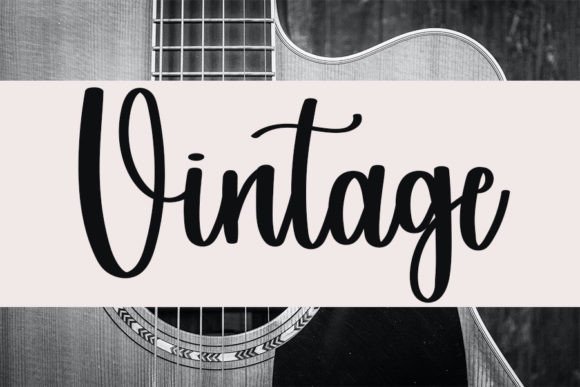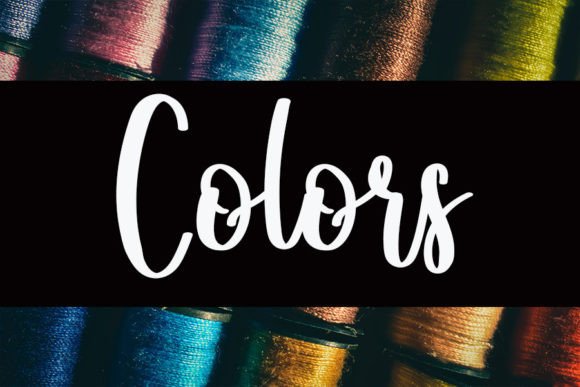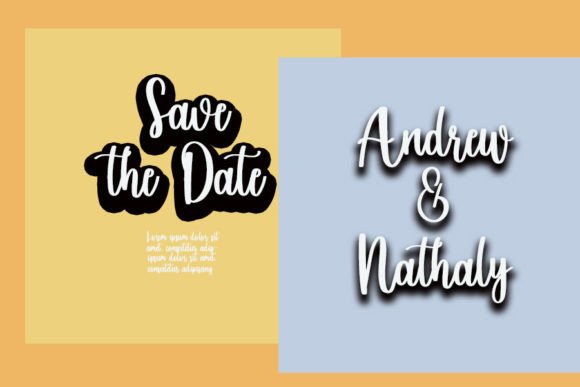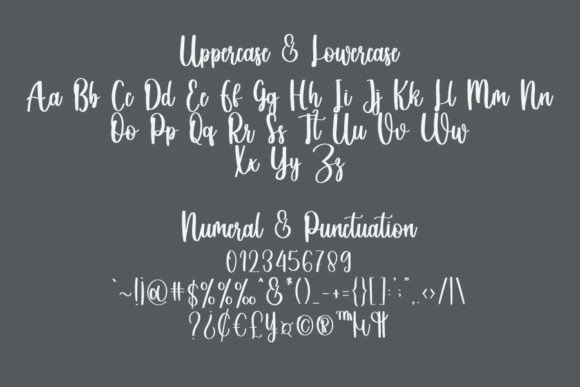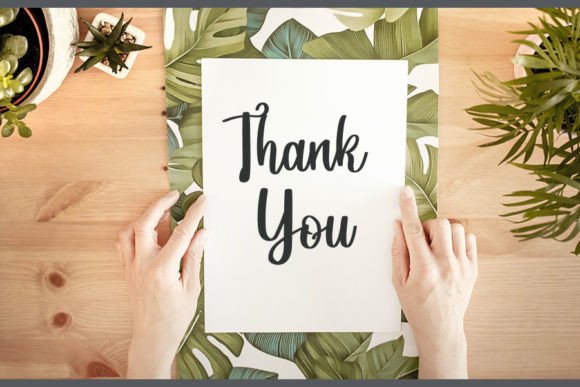
Bundels Font: Elevate Your Designs with a Modern Handwritten Style
Are you tired of using the same old fonts in your designs? Look no further than Bundels Font, a cool handwritten font that brings a modern vibe and spotless form to your projects. Inspired by classic calligraphy, Bundels is the perfect choice for designers and crafters looking to add a touch of elegance and sophistication to their work.
The Inspiration Behind Bundels Font
Bundels Font was designed with the goal of creating a balanced and varied handwritten font that would enhance the beauty of any project. The creators of Bundels drew inspiration from classic calligraphy, taking the best elements of traditional lettering and combining them with a modern twist. The result is a font that is both timeless and contemporary, with a unique character that sets it apart from other fonts.
What Makes Bundels Font So Special?
So, what makes Bundels Font so special? Here are just a few of its standout features:
- Balanced and varied: Bundels Font is designed to be balanced and varied, with a mix of thick and thin strokes that give it a natural, handwritten feel.
- Not too thin, not too thick: Unlike some fonts that can be too thin or too thick, Bundels strikes the perfect balance, making it easy to read and visually appealing.
- Modern vibe: Bundels Font has a distinctly modern feel, making it perfect for designers and crafters who want to add a touch of contemporary style to their work.
- Spotless form: The clean and precise lines of Bundels Font make it perfect for use in a variety of applications, from digital designs to print materials.
Uses for Bundels Font
Bundels Font is a versatile font that can be used in a wide range of applications, including:
- Digital designs: Use Bundels Font to add a personal touch to your website, social media graphics, or digital marketing materials.
- Print materials: Bundels Font is perfect for use in print materials such as brochures, flyers, and business cards.
- Crafting projects: If you’re a crafter, Bundels Font is a great choice for adding a personal touch to your projects, from scrapbooking to card making.
Tips for Using Bundels Font
Here are a few tips for getting the most out of Bundels Font:
- Experiment with different sizes: Bundels Font looks great in a variety of sizes, so don’t be afraid to experiment to find the perfect size for your project.
- Pair it with other fonts: Bundels Font pairs well with a variety of other fonts, so try combining it with other fonts to create a unique look.
- Use it consistently: To get the most out of Bundels Font, use it consistently throughout your project to create a cohesive look.
Bundels Font is a unique and versatile font that is perfect for designers and crafters looking to add a touch of elegance and sophistication to their work. With its modern vibe, spotless form, and balanced and varied design, Bundels Font is sure to become a go-to choice for anyone looking to elevate their designs. So why wait? Give Bundels Font a try today and see the difference it can make in your projects!
Whether you’re a seasoned designer or a crafty DIY enthusiast, Bundels Font is a great addition to your font collection. Its unique blend of classic calligraphy and modern style makes it perfect for a wide range of applications, from digital designs to print materials and crafting projects. So why not give it a try and see what you can create with Bundels Font?